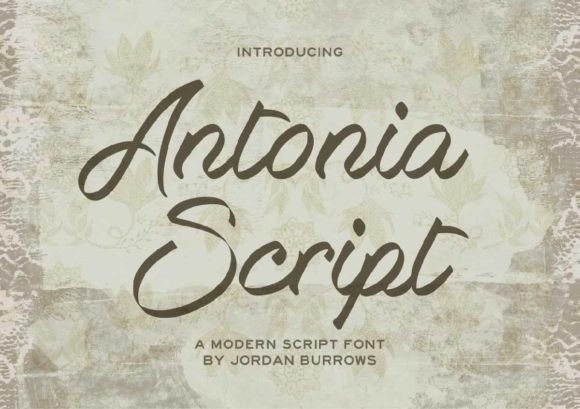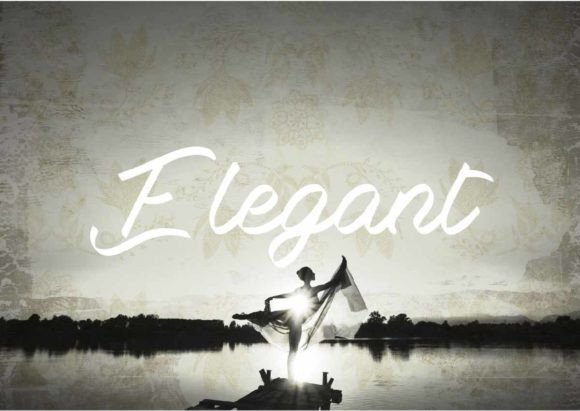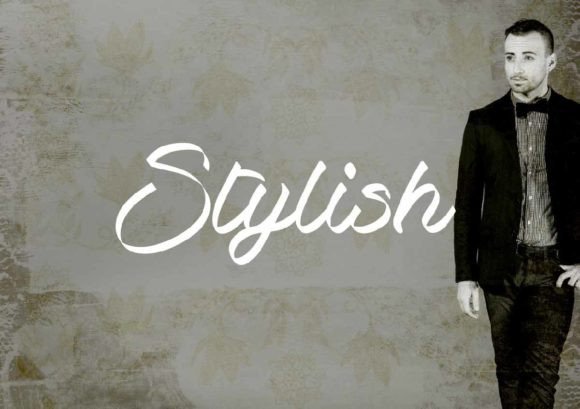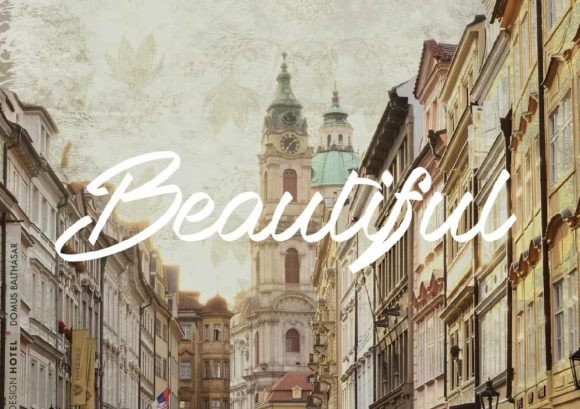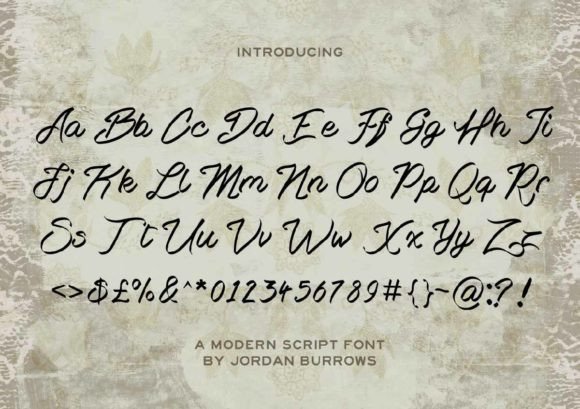
Antonia Script Font
Bring elegance and fluid charm to your design projects with the Antonia Script Font download. Antonia Script is a beautifully designed free-flowing script typeface that pairs sophistication with a natural brushstroke feel. Designed for creatives who love expressive, feminine, and artistic typography, this font blends modern beauty with timeless script aesthetics.
A Graceful Font for Stylish Projects
With its smooth curves and naturally flowing letterforms, Antonia Script delivers a polished yet handwritten appeal. The font includes stylistic alternates and well-balanced ligatures, making it ideal for use in a variety of contexts, especially when a delicate touch or romantic tone is needed.
Some ideal use cases for the Antonia Script Font download include:
• Wedding Invitations & Save-the-Dates: Its elegant flourishes elevate wedding stationery to feel personal and luxurious
• Wall Art & Home Decor: Adds charm to framed quotes, canvas prints, or digital illustrations
• Greeting Cards: Perfect for heartfelt messages in birthday, thank you, or holiday cards
• Logo & Branding Projects: Great for fashion, beauty, lifestyle, or handmade product branding
• Social Media Graphics: Ideal for Instagram posts, story highlights, and Pinterest pins that require a stylish script look
• Personal Projects: Journals, planners, scrapbooking, and custom gifts
Whether you’re designing for a bride-to-be, building your brand identity, or creating social content, Antonia Script offers a soft, refined personality that speaks with elegance.
Technical Features
• Multilingual Support: Includes standard characters and supports a variety of European languages
• High-Quality Glyphs: Clean vector paths make this font suitable for both print and digital uses
• Bonus Ligatures: Smooth connections between letters for realistic hand-drawn appeal
Why Designers Love Antonia Script
What makes the Antonia Script Font download a designer favorite is its versatility and refined character. It doesn’t just offer one style—it adapts to its environment, allowing for subtle sophistication in one use, or playful elegance in another.
Its gentle brush pressure and organic strokes mimic hand-painted calligraphy, giving your designs a unique, authentic finish. You can also combine it with serif or sans-serif fonts for contrast and hierarchy in brand materials or invitations.